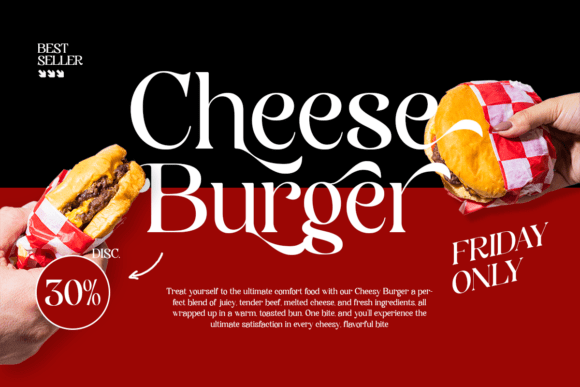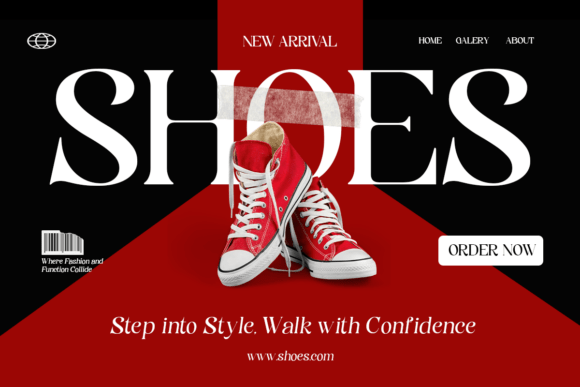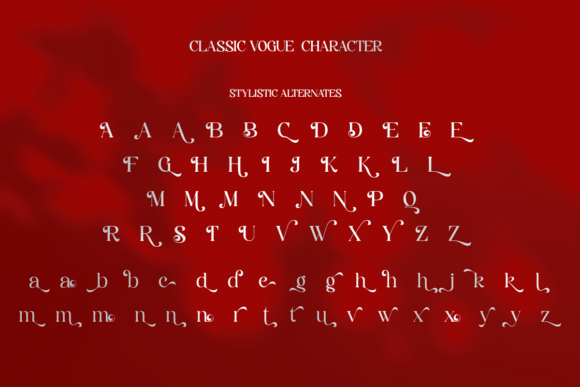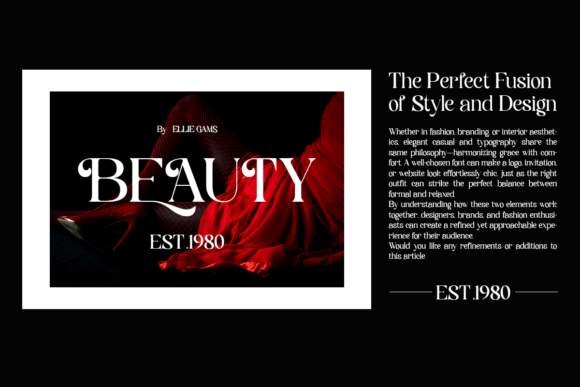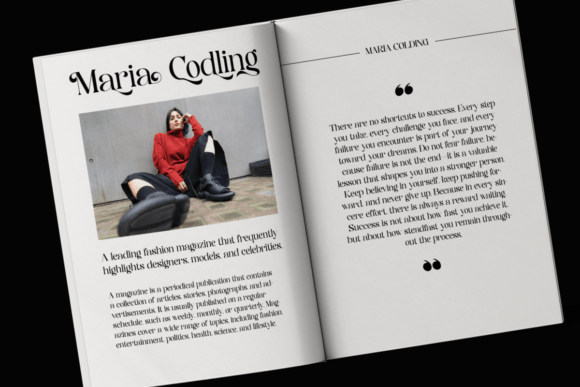
Introducing Classic Vogue Font: Elevate Your Design with Timeless Elegance
Are you a designer or crafter looking for a typeface that exudes luxury, sophistication, and drama? Look no further than the Classic Vogue Font. This high-contrast serif typeface is the perfect blend of modern elegance and classic flair, making it ideal for a wide range of design applications.
What is Classic Vogue Font?
Classic Vogue is a stunning serif typeface that boasts sharp serifs, sculpted curves, and elegant swashes. Its distinctive editorial presence makes it perfect for luxury branding, magazine headlines, fashion lookbooks, and high-impact visual identities. Every detail of this font has been carefully crafted to command attention, from its sweeping alternates to its refined proportions.
Key Features of Classic Vogue Font
- High-contrast serif typeface: Classic Vogue features sharp serifs and sculpted curves, giving it a distinctive and elegant look.
- Elegant swashes: Add a touch of sophistication to your designs with the font’s beautiful swashes.
- Refined proportions: The font’s balanced proportions ensure clarity and structure, making it perfect for a wide range of design applications.
- Multi-language support: The font supports multiple languages, making it a versatile choice for designers working on international projects.
Ideal Use Cases for Classic Vogue Font
Classic Vogue is perfect for designers working on upscale campaigns, beauty or fashion branding, and any project where strong visual storytelling is key. Here are some ideal use cases for the font:
- High-end fashion branding: Elevate your fashion brand with the font’s luxurious and sophisticated look.
- Premium cosmetic packaging: Make a statement with your cosmetic packaging using Classic Vogue’s elegant and refined design.
- Luxury hotel identity systems: Create a lasting impression with the font’s sophisticated and elegant design.
- Elegant magazine layouts: Add a touch of luxury to your magazine layouts with Classic Vogue’s high-contrast serif design.
- Sophisticated wedding suites: Make your wedding designs truly unforgettable with the font’s elegant and refined look.
Why Choose Classic Vogue Font?
So, why choose Classic Vogue Font for your design projects? Here are just a few reasons:
- Unique and distinctive design: Classic Vogue’s high-contrast serif design sets it apart from other typefaces.
- Elegant and sophisticated look: The font’s elegant swashes and refined proportions give it a luxurious and sophisticated look.
- Versatile and adaptable: Classic Vogue supports multiple languages and comes in standard professional formats, making it a versatile choice for designers.
- Effortless use: The font’s PUA-encoding ensures effortless use across various design software.
In conclusion, Classic Vogue Font is a stunning serif typeface that exudes luxury, sophistication, and drama. Its high-contrast design, elegant swashes, and refined proportions make it perfect for a wide range of design applications, from high-end fashion branding to elegant magazine layouts. With its PUA-encoding, multi-language support, and standard professional formats, Classic Vogue is a versatile and adaptable choice for designers. Elevate your designs with the timeless elegance of Classic Vogue Font.